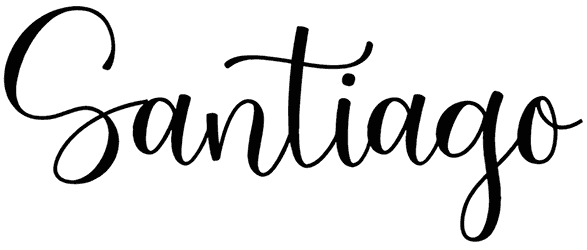
Santiago Font
In today’s fast-paced digital world, Santiago can be a reminder that sometimes the simplest pleasures can be the most rewarding. Use this handwritten font to create a greeting card, design a logo, or write a note to a friend.
This can make your communication with the audience slower, more deliberate, and meaningful, and bring you valuable results. So the next time you need some originality, give the reins of your creativity to this script font to take you to new heights.
This charming font will turn any creative idea into a standout.